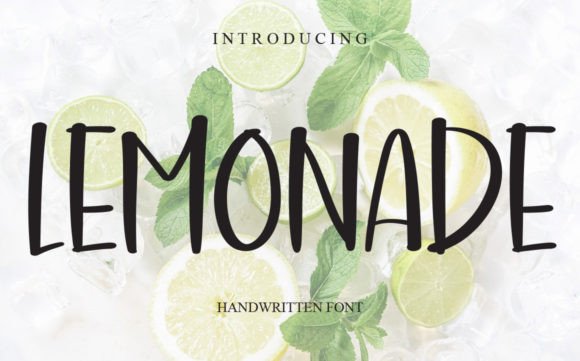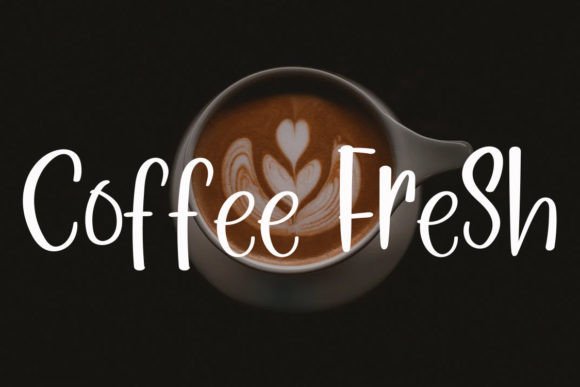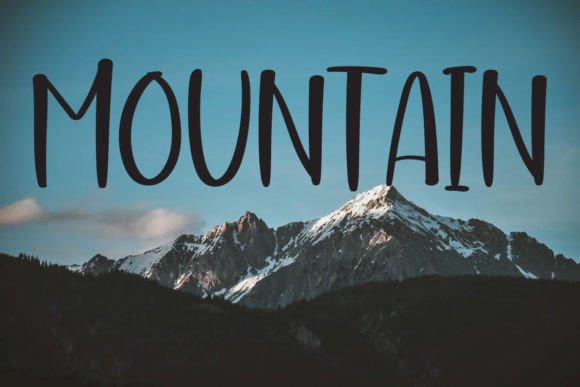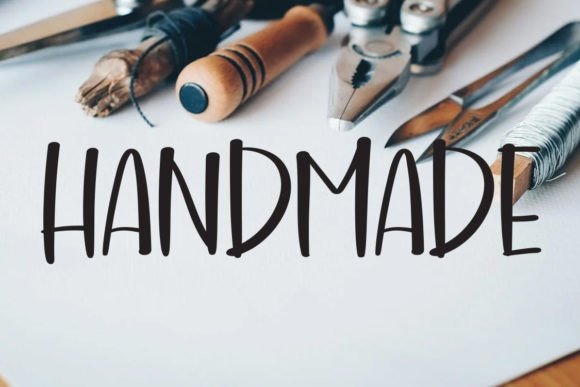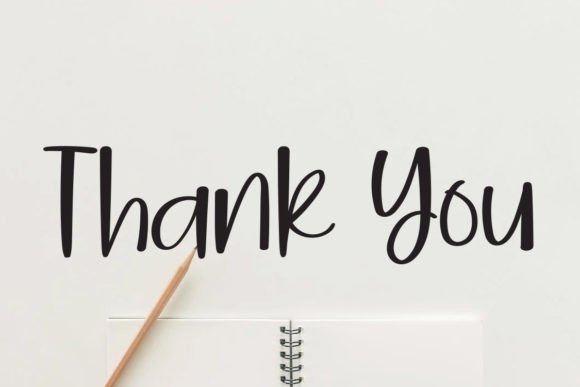
Lemonade Font
What Is Lemonade Font?
Lemonade Font is a sweet and friendly handwritten script designed to bring warmth, charm, and elegance to your creative projects. Each letter flows gracefully with smooth, delicate curves that feel personal and inviting. Whether you’re crafting something romantic, casual, or sophisticated, Lemonade adds a touch of authenticity that makes any design stand out.
Its approachable style makes it a must-have for designers who value clarity, beauty, and personality.
Lemonade is incredibly versatile and perfect for many applications. For example, it shines on wedding invitations, save-the-dates, and event signage. The handwritten style creates a heartfelt, memorable impression that sets the tone for special occasions.
Wall displays and framed quotes look beautiful with Lemonade’s soft flow. The friendly letters bring warmth to home decor, offices, or boutique spaces.
Logos and branding projects gain a welcoming, artisanal feel with Lemonade. From creative studios and bakeries to lifestyle brands, this font helps create a visual identity that feels genuine.
Social media graphics, website headers, and blog posts instantly look polished with Lemonade’s clean, delicate strokes. Your digital content will capture attention and feel approachable.
Even product packaging, labels, and stationery are elevated by Lemonade’s sweet, handwritten character.
Why Should You Choose Lemonade Font?
One of Lemonade’s biggest strengths is its readability. Even with its elegant, flowing shapes, each letter stays clear and legible at any size. Whether you’re designing small tags or large headlines, your text will always look professional and easy to read.
It pairs seamlessly with minimalist serif or sans-serif typefaces, giving you complete flexibility to create clean, balanced layouts.
Designers appreciate that Lemonade looks refined out of the box, saving time and delivering beautiful results effortlessly.
Lemonade Font adds sincerity, warmth, and elegance to every project. Its smooth curves and delicate movement create an emotional connection that makes your work feel personal and engaging.
Even minimalist designs gain charm and authenticity with Lemonade. Whether you’re designing a wedding suite, a logo, or social content, this font elevates your visuals with ease.
Using a high-quality handwritten script also shows your commitment to thoughtful, professional design. Clients and customers will notice this care, helping you build trust and stand out in any market.
Lemonade Font is more than just a pretty script—it’s a versatile design tool that helps you share ideas with clarity, warmth, and style. From weddings and branding to packaging and social media, this font adapts seamlessly to any project and leaves a lasting impression.